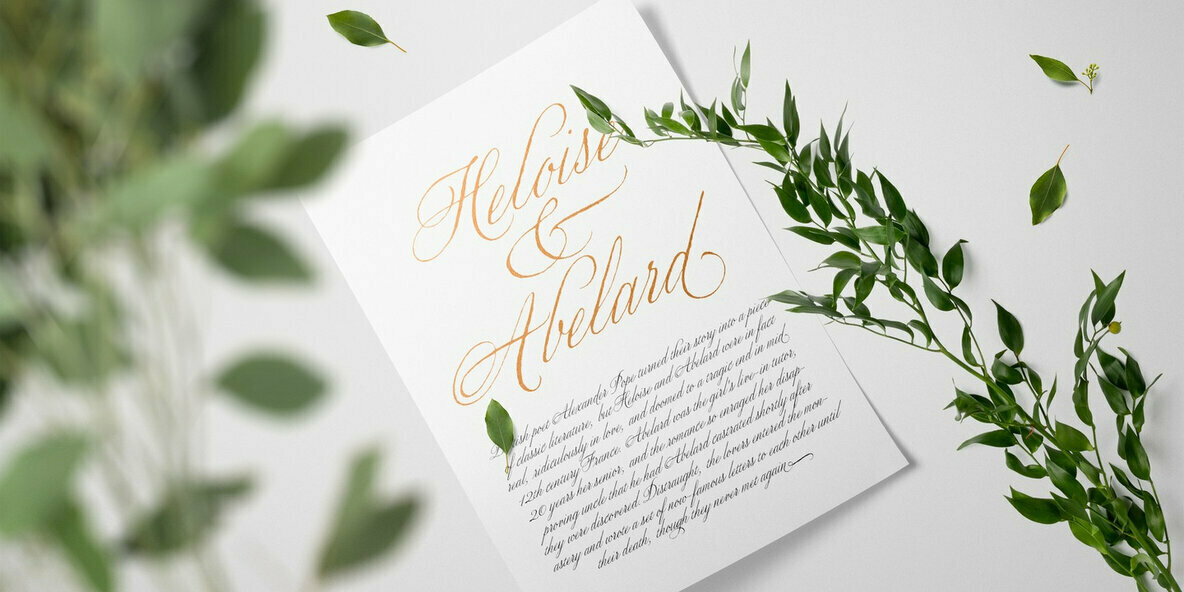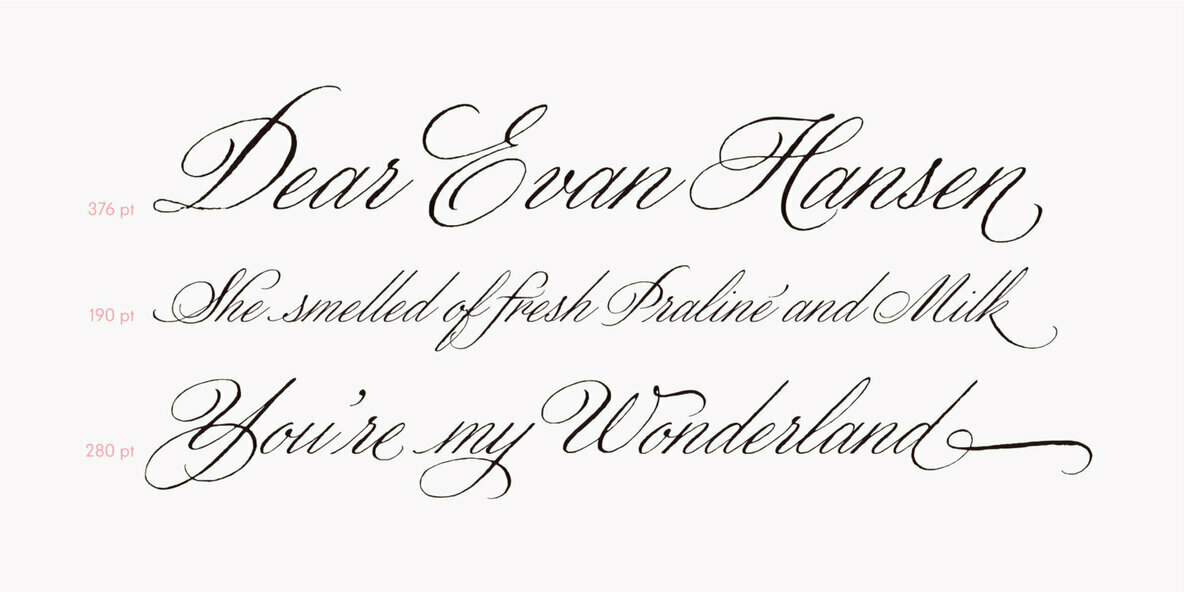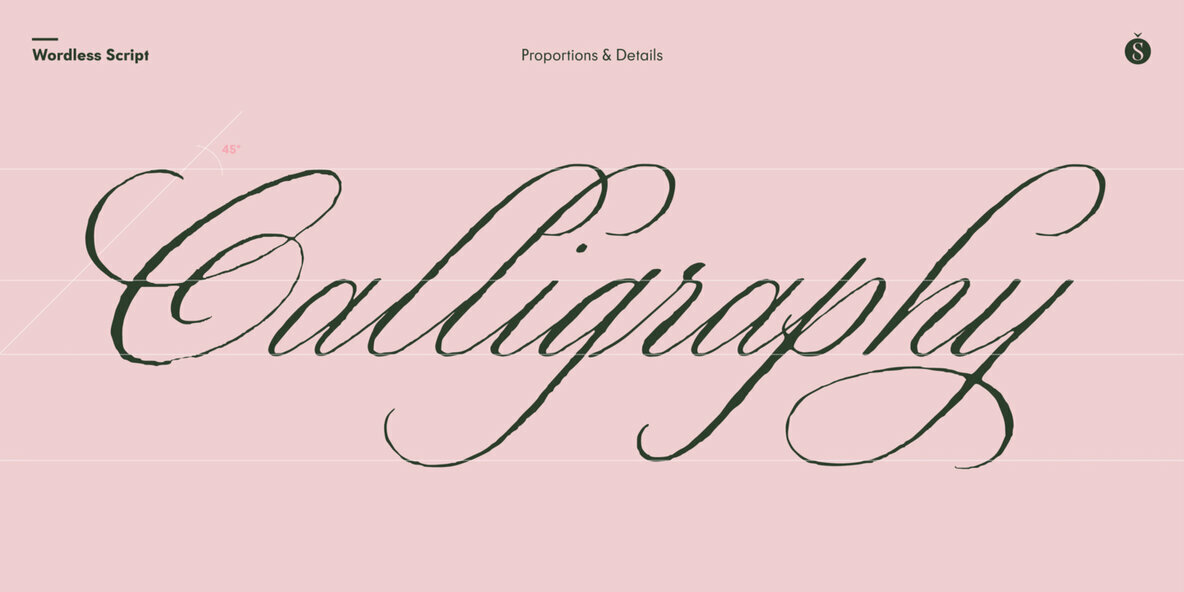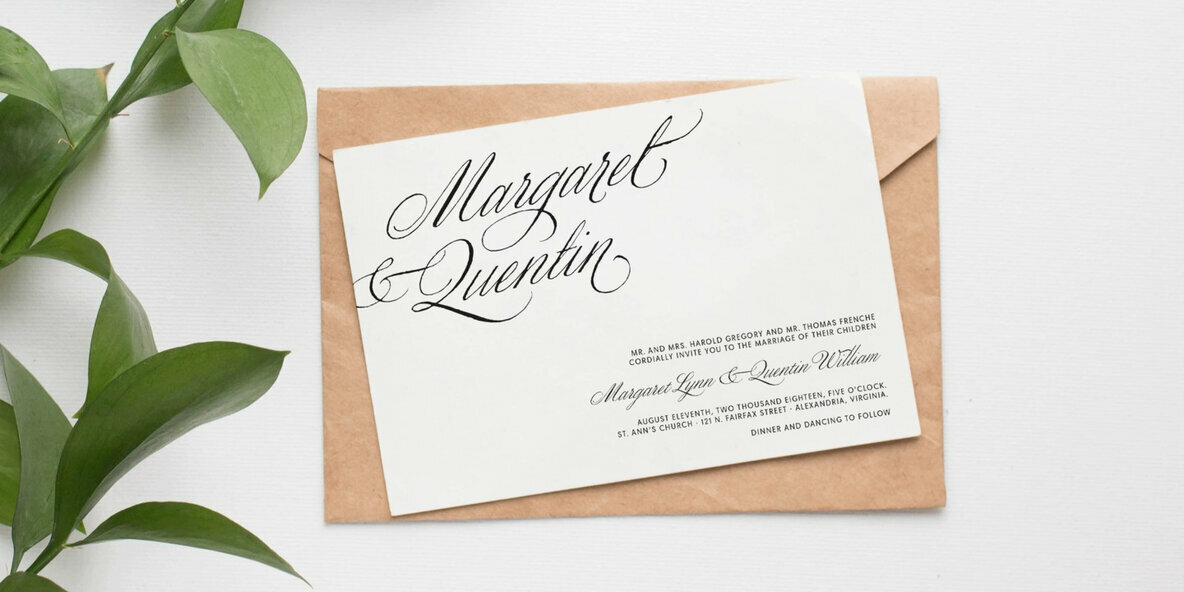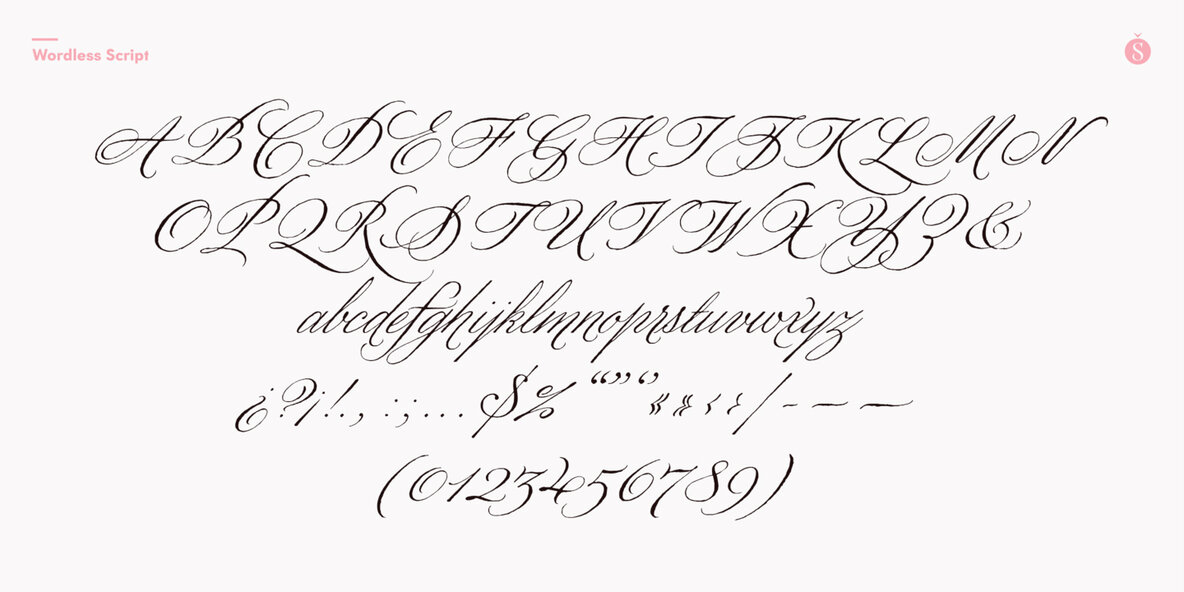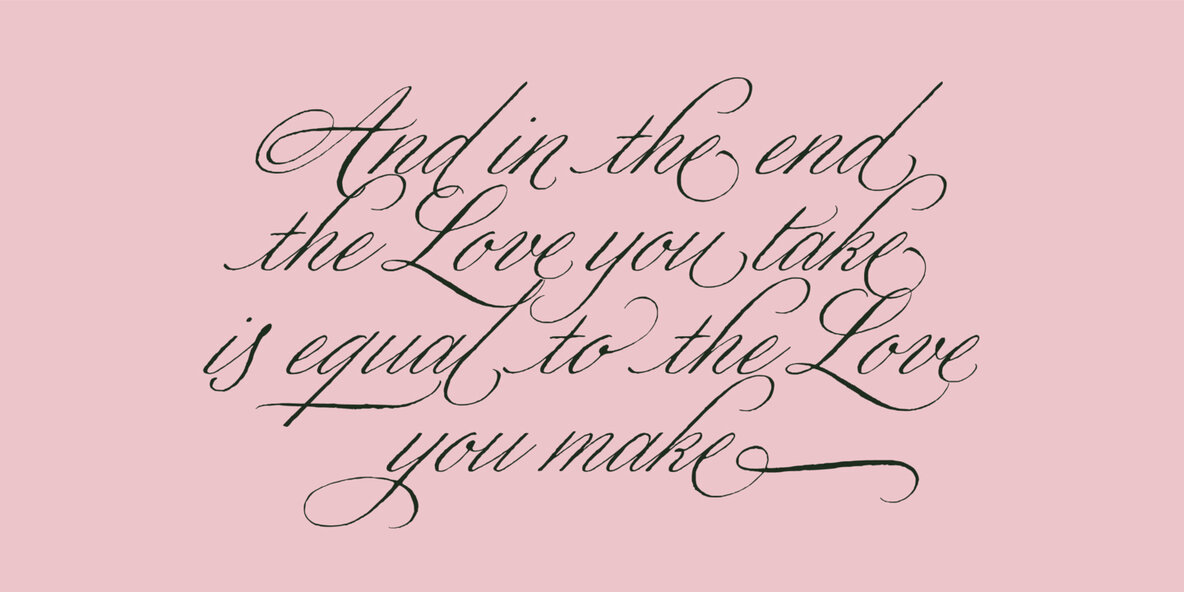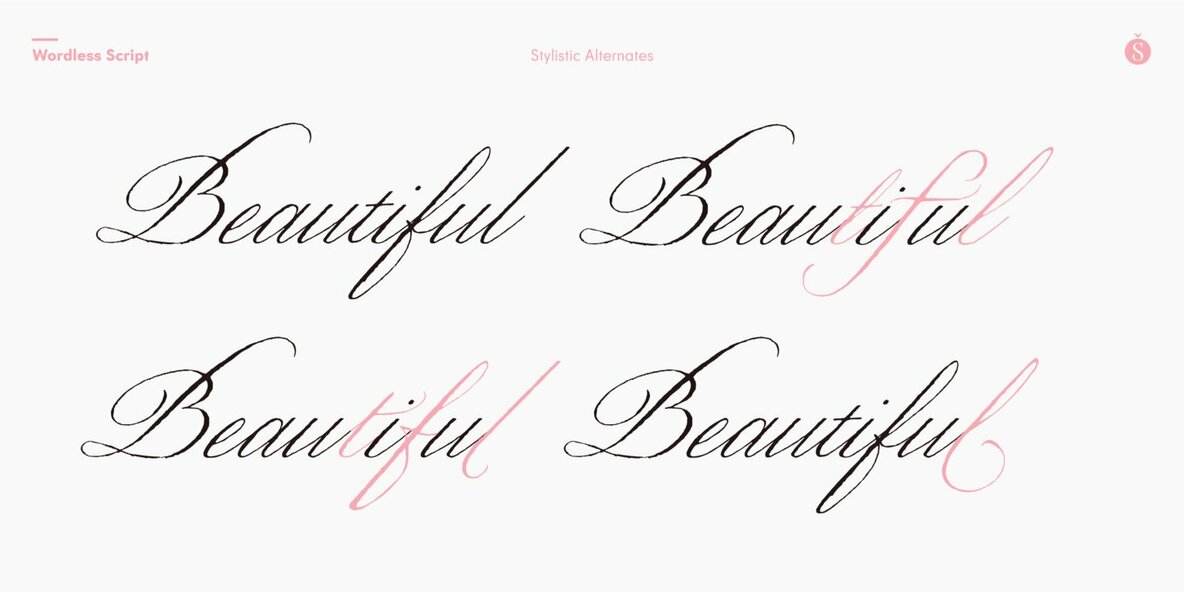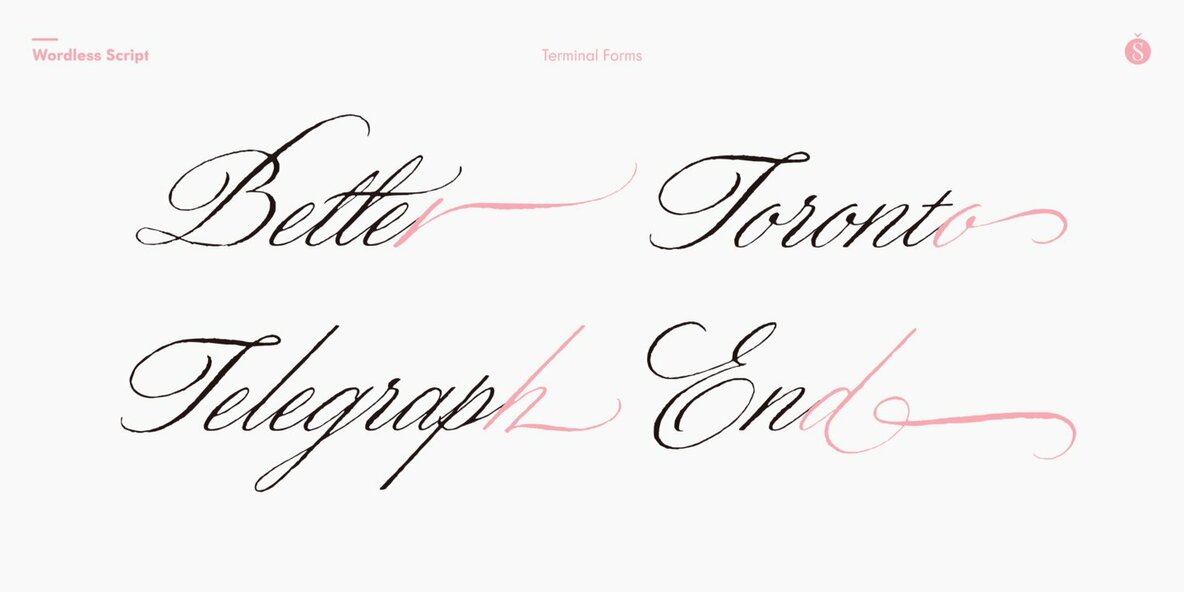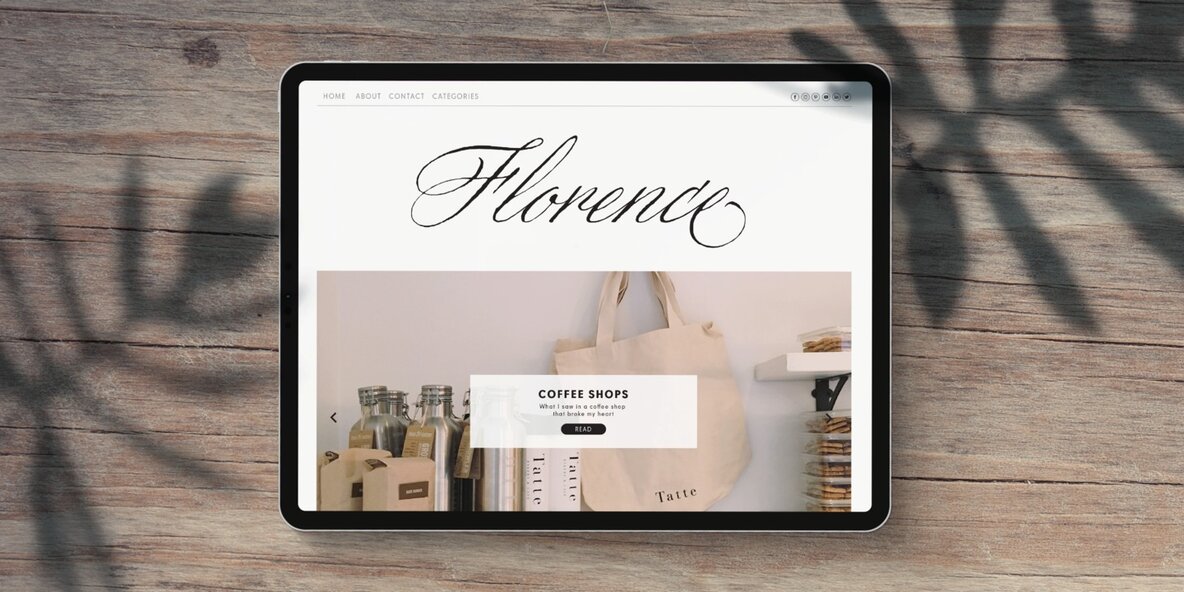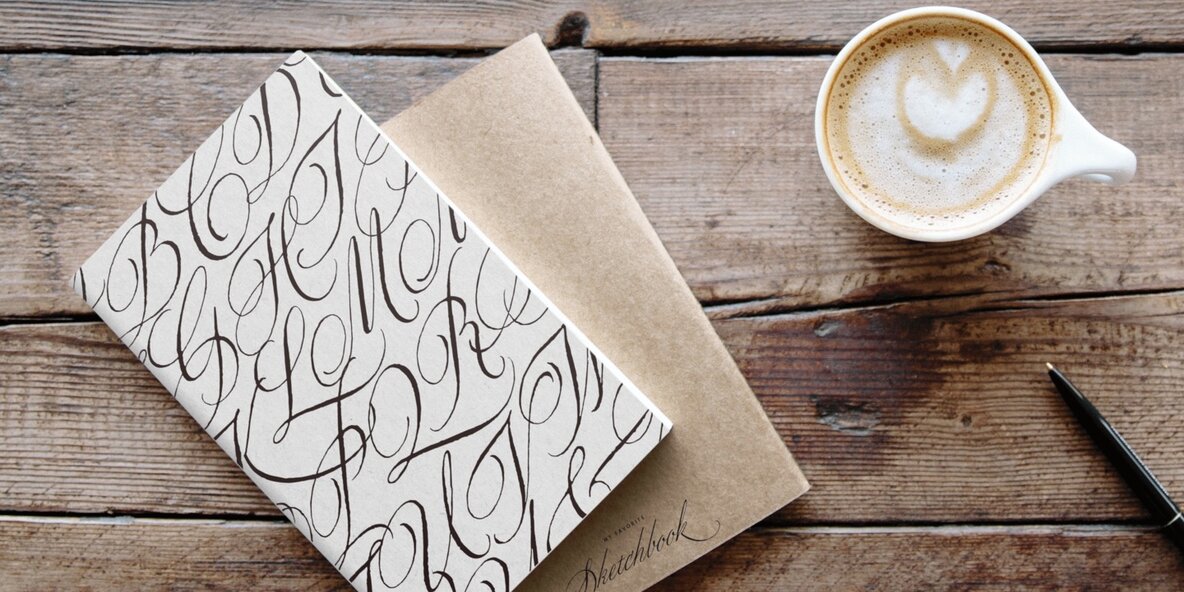
We are very happy to announce the release of our first collaboration with master calligrapher, designer and illustrator Gabriel Martínez Meave from México. The first in the series of new designs is Wordless Script, an emotional calligraphic typeface published by Sudtipos.
Speechless. Breathless. Wordless. There are letters that transcend simple functionality and sheer legibility, to be recognized instead by their style, their charm, their emotion. It’s like when we don’t remember the exact sentences, but we recall the tone of the voice of a loved one: it just doesn’t matter WHAT he or she said, but HOW he or she said it.
Wordless Script is the font of choice for writing those things that go beyond words. Based on the connected-scripts of late 18th-century England, this typeface preserves the irregular finish and gestural strokes of the pointed nib. It is, so to speak, a personal rendition of the English roundhand as originally executed with the bird’s quill. Imbued with a Rococo, neoclassical, romantic spirit, Wordless radiates the gallantry of a time when the celebrated «douceur de vivre» that Talleyrand was so fond of was still alive and well; echoes of which still haunt us in our eclectic 21st-century, which has once again come to appreciate these magnificent styles of old.
Wordless features alternate variants of most letters, ligatures and multiple calligraphic endings, ideal for elegant labels, high-end packaging and personalized stationery, as well as compositions for selected brands, exquisite titlings, verses, letters and short texts, like those meant to be read with the eyes only or intended for whispering into someone’s ear.